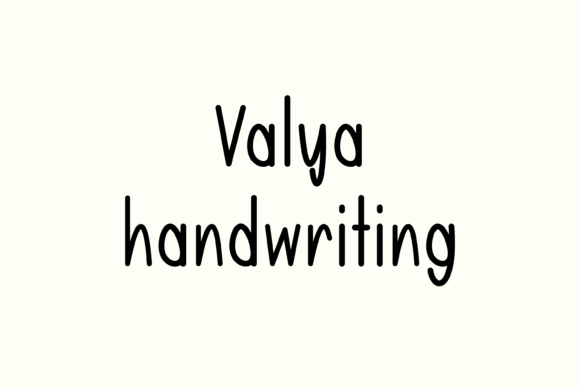
Introducing Valya Font: A Simple and Friendly Handwritten Typeface
Are you looking for a font that can add a touch of whimsy and quirkiness to your designs? Look no further than Valya Font, a simple and friendly handwritten typeface that’s perfect for a wide range of projects. In this article, we’ll take a closer look at the features and benefits of Valya Font, and explore how you can use it to elevate your designs.
What is Valya Font?
Valya Font is a handwritten typeface that’s designed to be both simple and friendly. It’s a versatile font that can be used for a wide range of projects, from logos and wedding invitations to quotes, advertisements, and more. With its whimsical and quirky style, Valya Font is sure to add a touch of personality to any design.
Key Features of Valya Font
- Handwritten style: Valya Font has a natural, handwritten look that’s perfect for creating unique and personalized designs.
- Simple and friendly: The font has a simple and approachable style that’s easy to read and understand.
- Whimsical and quirky: Valya Font has a playful and quirky style that’s sure to add a touch of personality to any design.
- Versatile: The font can be used for a wide range of projects, from logos and wedding invitations to quotes, advertisements, and more.
Benefits of Using Valya Font
So why should you choose Valya Font for your next project? Here are just a few benefits of using this versatile typeface:
- Adds personality to your designs: Valya Font’s whimsical and quirky style is sure to add a touch of personality to any design.
- Easy to read and understand: The font’s simple and friendly style makes it easy to read and understand, even at small sizes.
- Perfect for a wide range of projects: Valya Font can be used for everything from logos and wedding invitations to quotes, advertisements, and more.
- Unique and creative: With its handwritten style and quirky personality, Valya Font is sure to help your designs stand out from the crowd.
How to Use Valya Font
Valya Font is a versatile typeface that can be used for a wide range of projects. Here are just a few ideas to get you started:
- Logos: Use Valya Font to create a unique and memorable logo for your business or brand.
- Wedding invitations: Add a touch of whimsy and romance to your wedding invitations with Valya Font.
- Quotes and posters: Use Valya Font to create eye-catching quotes and posters that are sure to grab attention.
- Advertisements: Add a touch of personality to your advertisements with Valya Font.
- Print and magazines: Use Valya Font to add a touch of whimsy and quirkiness to your print designs, including magazines and brochures.
Pairing Valya Font with Other Fonts
Valya Font can be paired with a wide range of other fonts to create unique and interesting combinations. Here are a few suggestions:
- Serif fonts: Pair Valya Font with a serif font, such as Times New Roman or Georgia, to create a interesting contrast between the handwritten and serif styles.
- Sans-serif fonts: Pair Valya Font with a sans-serif font, such as Arial or Helvetica, to create a clean and modern look.
- Script fonts: Pair Valya Font with another script font, such as Pacifico or Great Vibes, to create a flowing and elegant look.
In conclusion, Valya Font is a simple and friendly handwritten typeface that’s perfect for a wide range of projects. With its whimsical and quirky style, Valya Font is sure to add a touch of personality to any design. Whether you’re creating a logo, wedding invitation, quote, advertisement, or print design, Valya Font is a great choice. So why not give it a try and see the difference it can make?